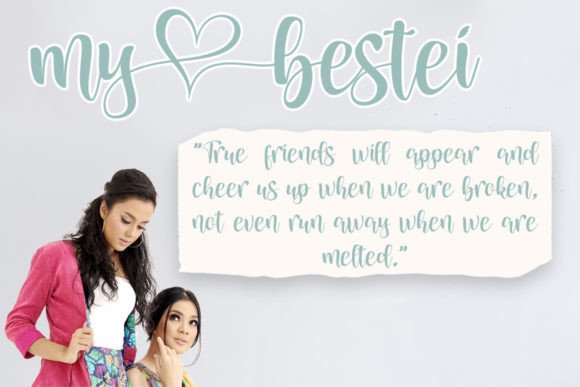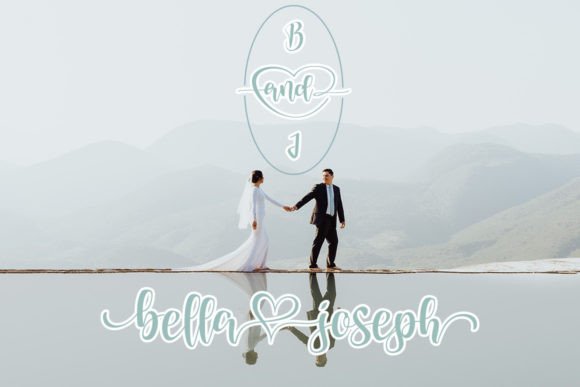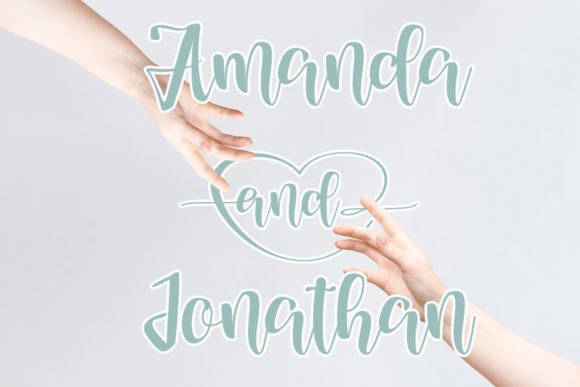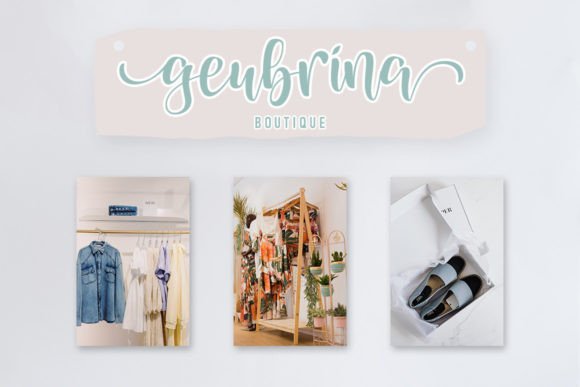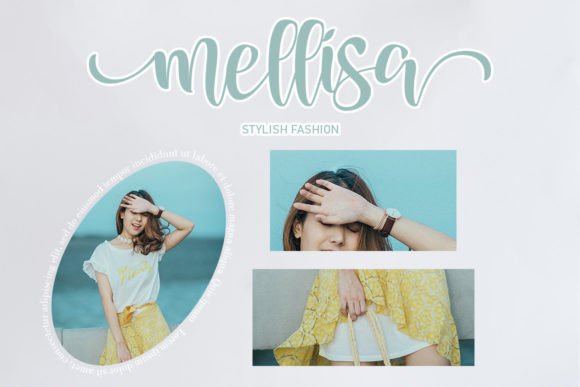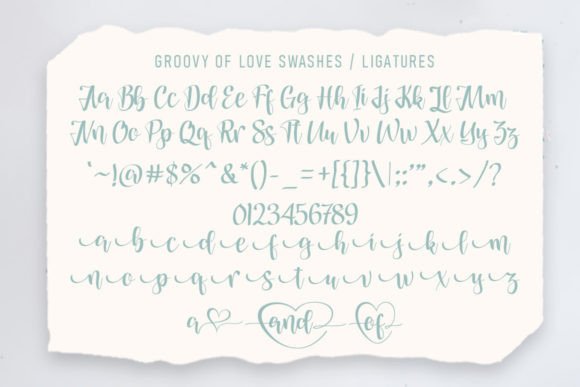
Introduction to Groovy of Love Font
A very fun yet elegant script font with lots of energy, it lets you create beautifully handcrafted typography in an instant.
With extra curves & twists, Groovy of Love is guaranteed to make your text stand out โ perfect for logos, printed quotes, invitations, cards, product packaging, headers, weddings, and anything else you can imagine Whatโs really awesome is that Groovy of Love comes with a full set of lowercase alternatives, which allow you to create more authentic custom-feel text.
Key Features of Groovy of Love Font
Why Choose Groovy of Love Font?
Groovy of Love Font offers exceptional quality and versatility, making it a valuable addition to your design toolkit. Whether you’re creating for personal projects or commercial use, Groovy of Love Font delivers professional results.